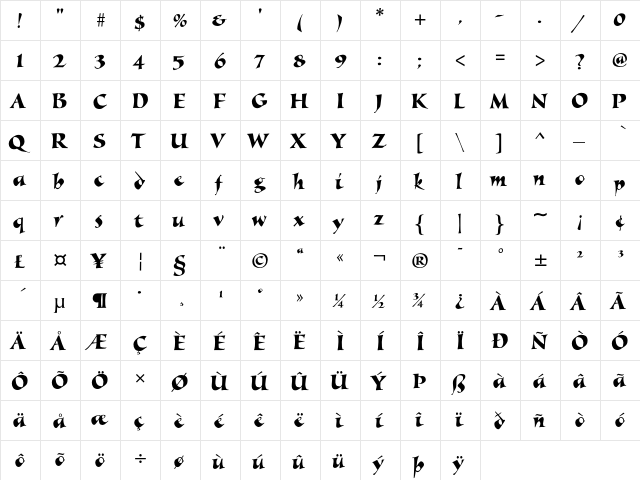
AIAlexia Regular
Design Context for AIAlexia Typeface
AIAlexia is a composed and adaptable typeface that performs quietly and consistently across a wide range of design contexts.